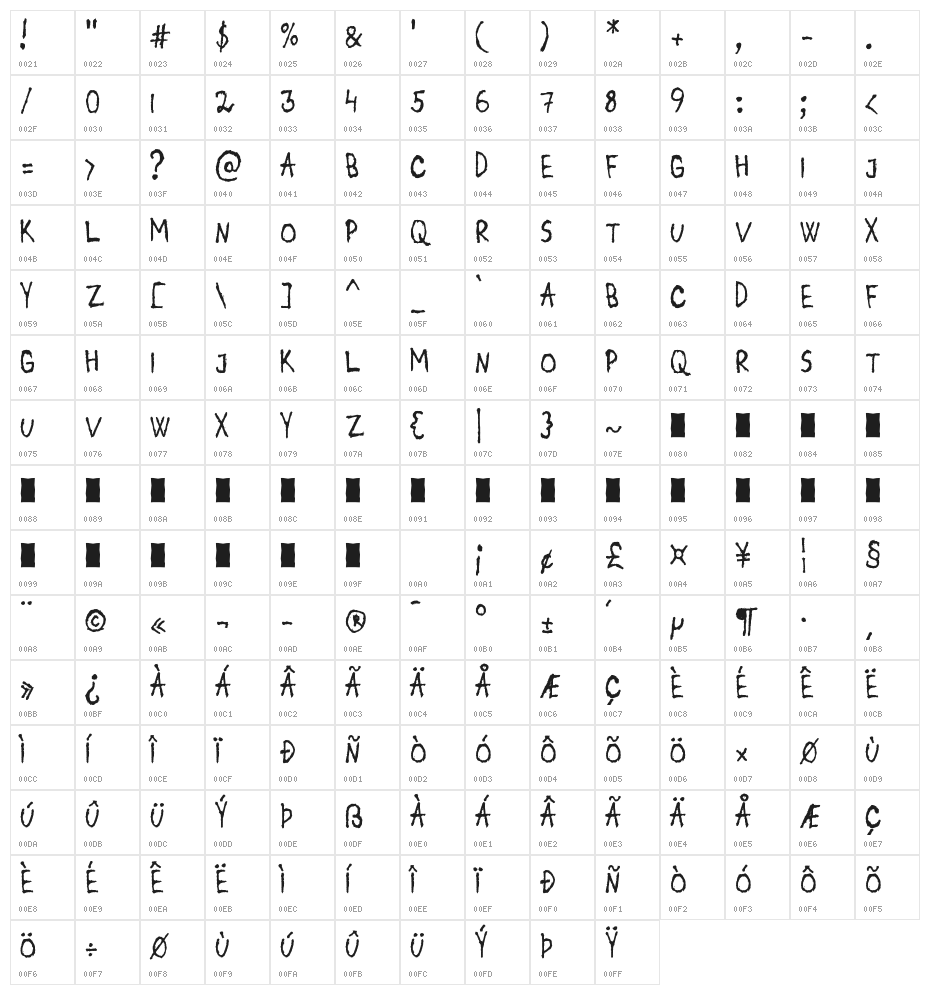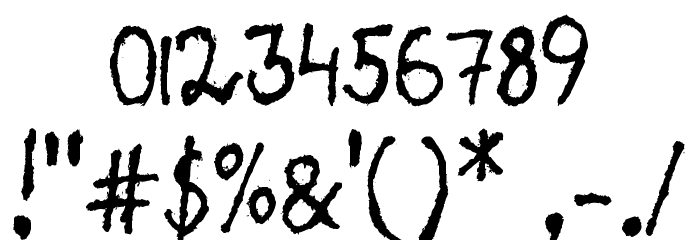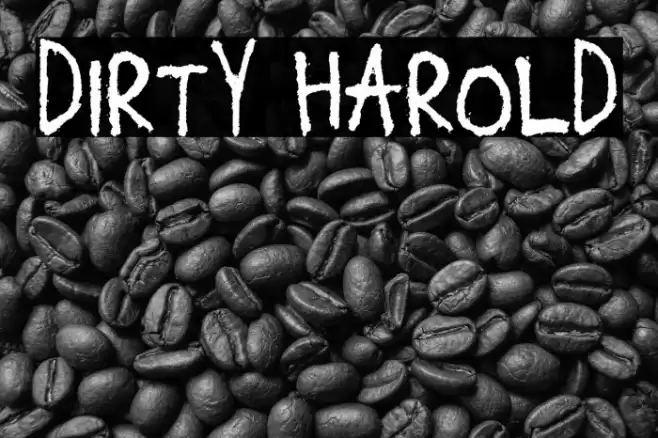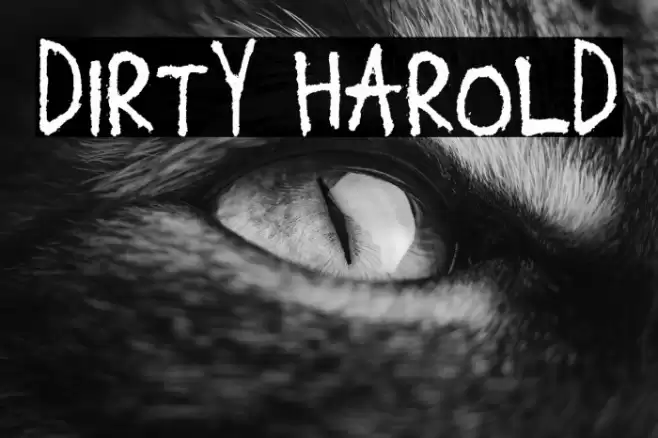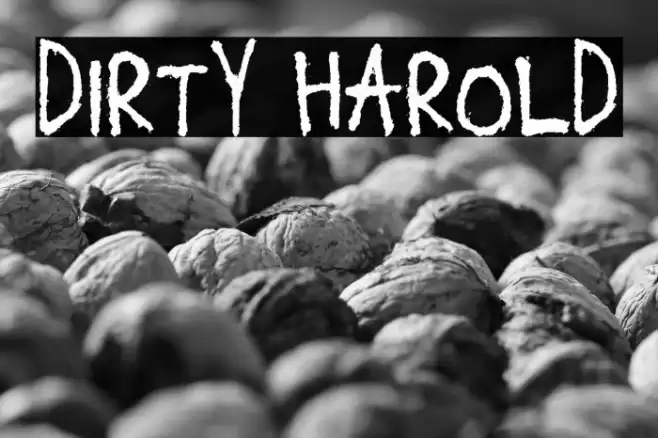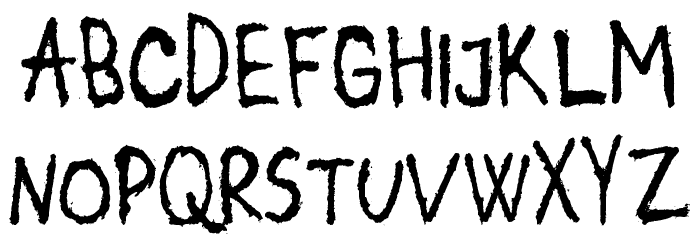
Dirty Harold Font
Dirty Harold Description
This font exhibits a rugged, hand-drawn style with a rough texture that gives it a gritty and organic appearance. The characters are unevenly shaped, adding to the informal and spontaneous feel. The uppercase and lowercase letters maintain a consistent height, while the numbers and special characters follow the same rough aesthetic. This font's unique style makes it stand out, offering a sense of authenticity and rawness that is ideal for creative projects.
| Overall Style | Decorative |
| Use Case | Logos, Posters, Creative Branding |
| Proposed Projects | Ideal for projects that require a personal touch, such as handmade product labels, artistic posters, or creative branding materials. |